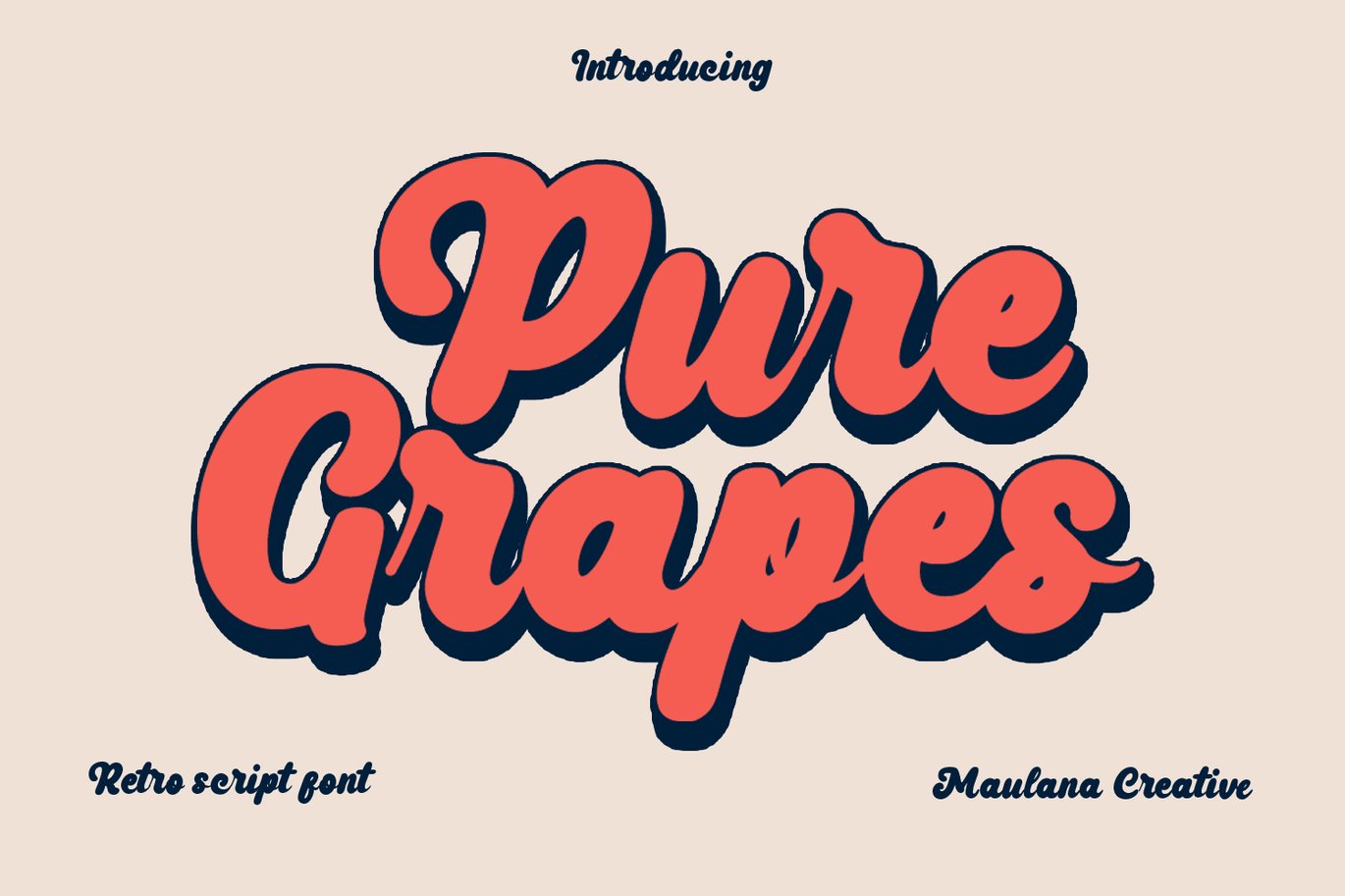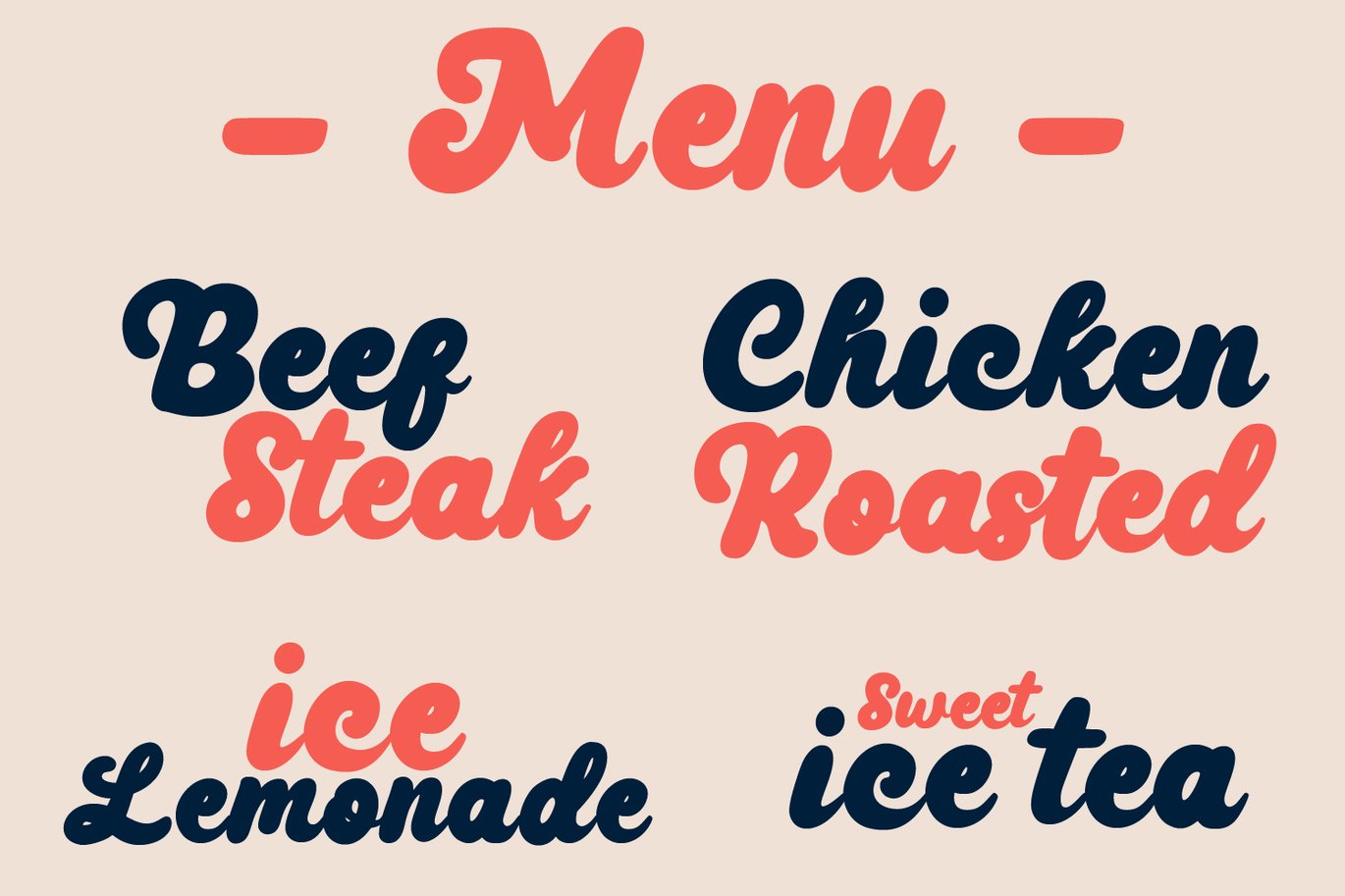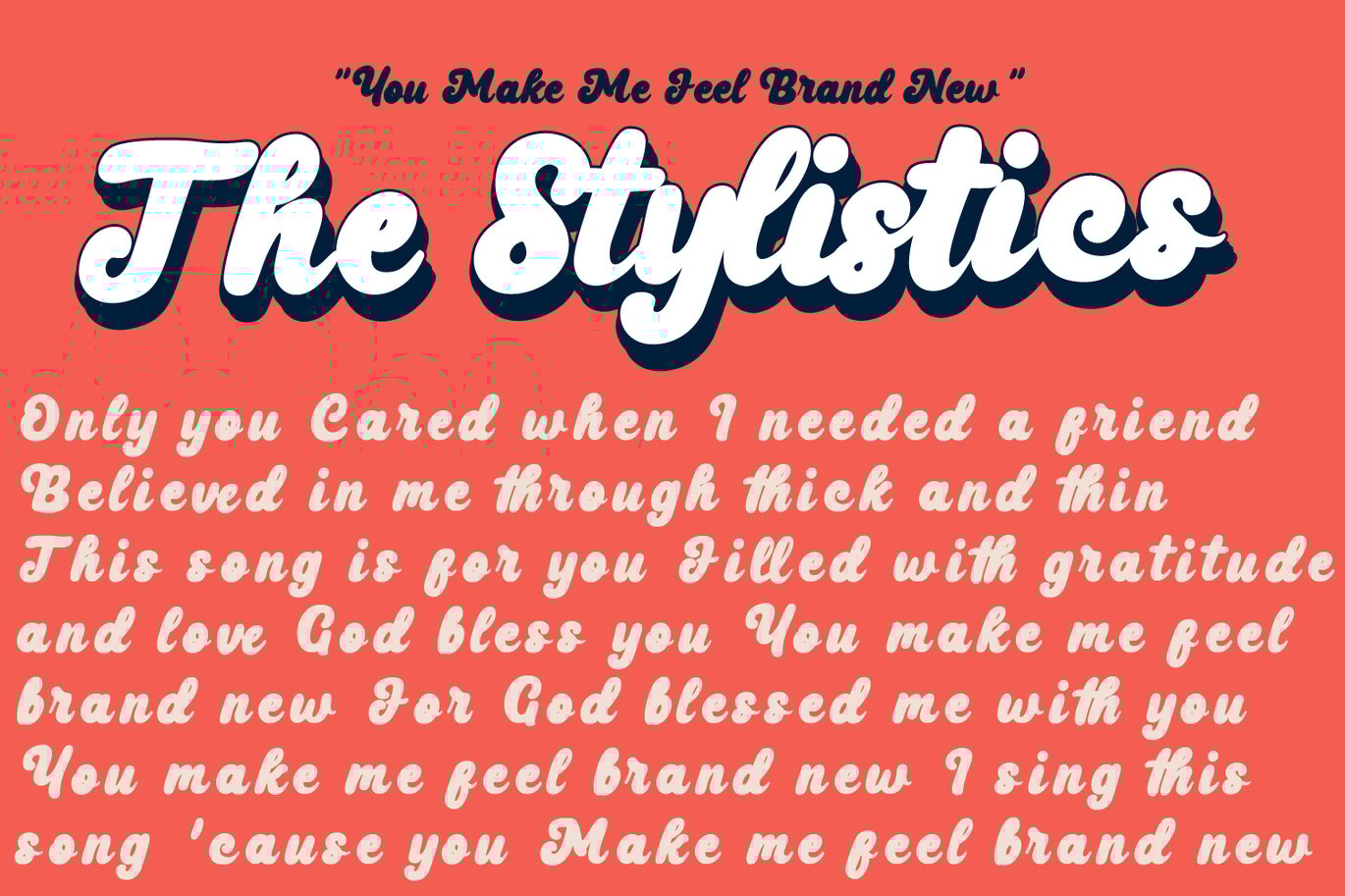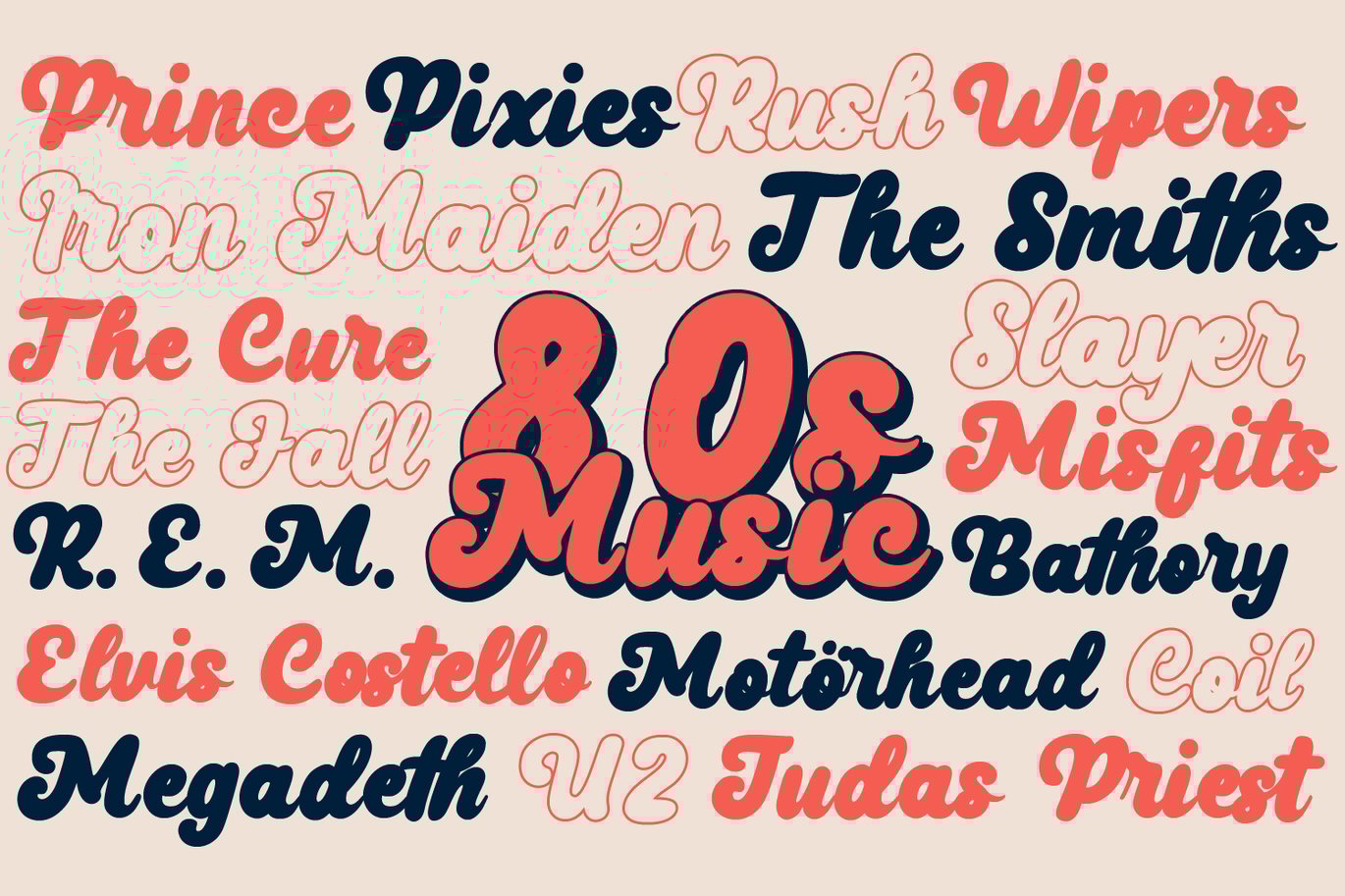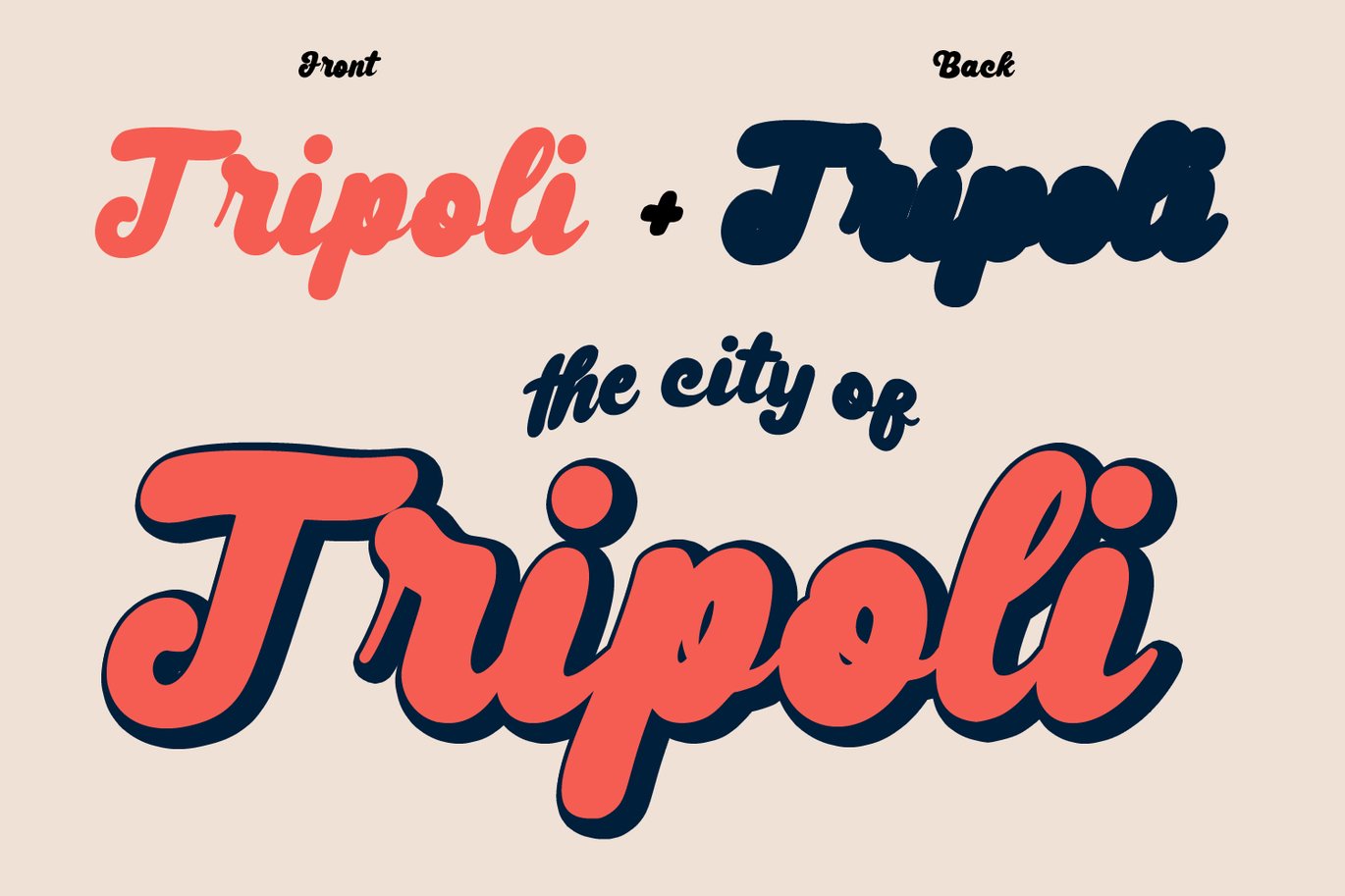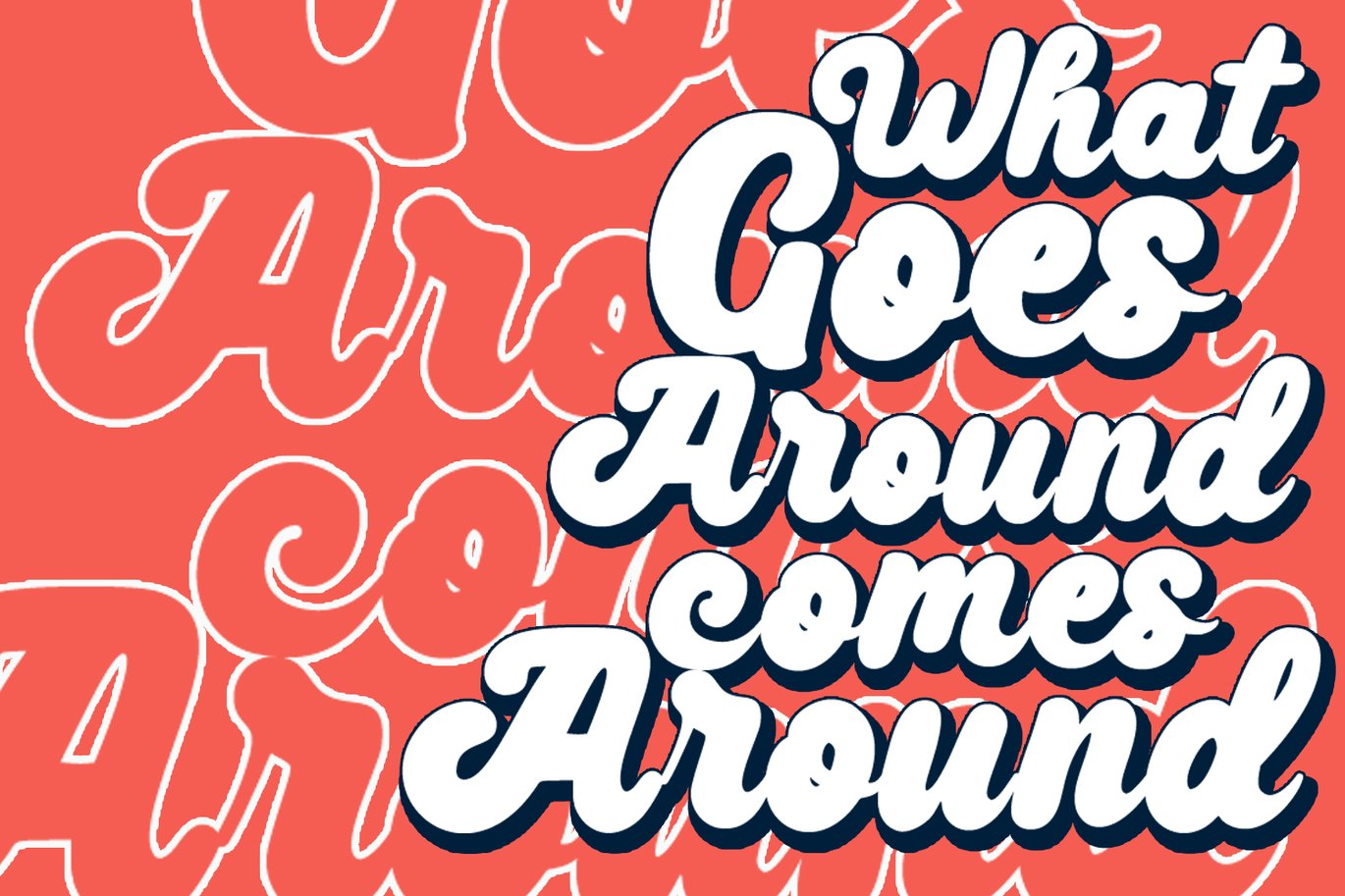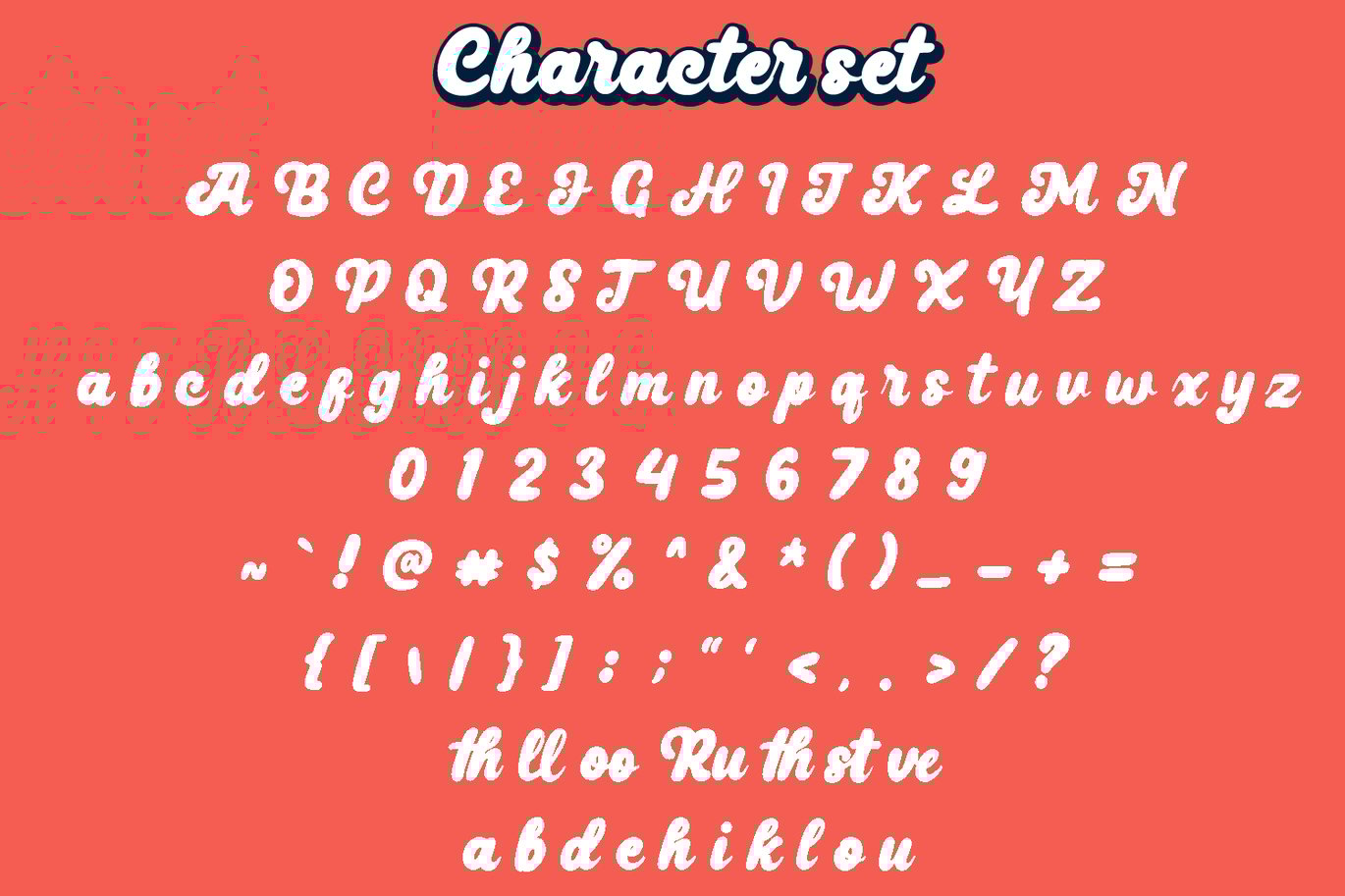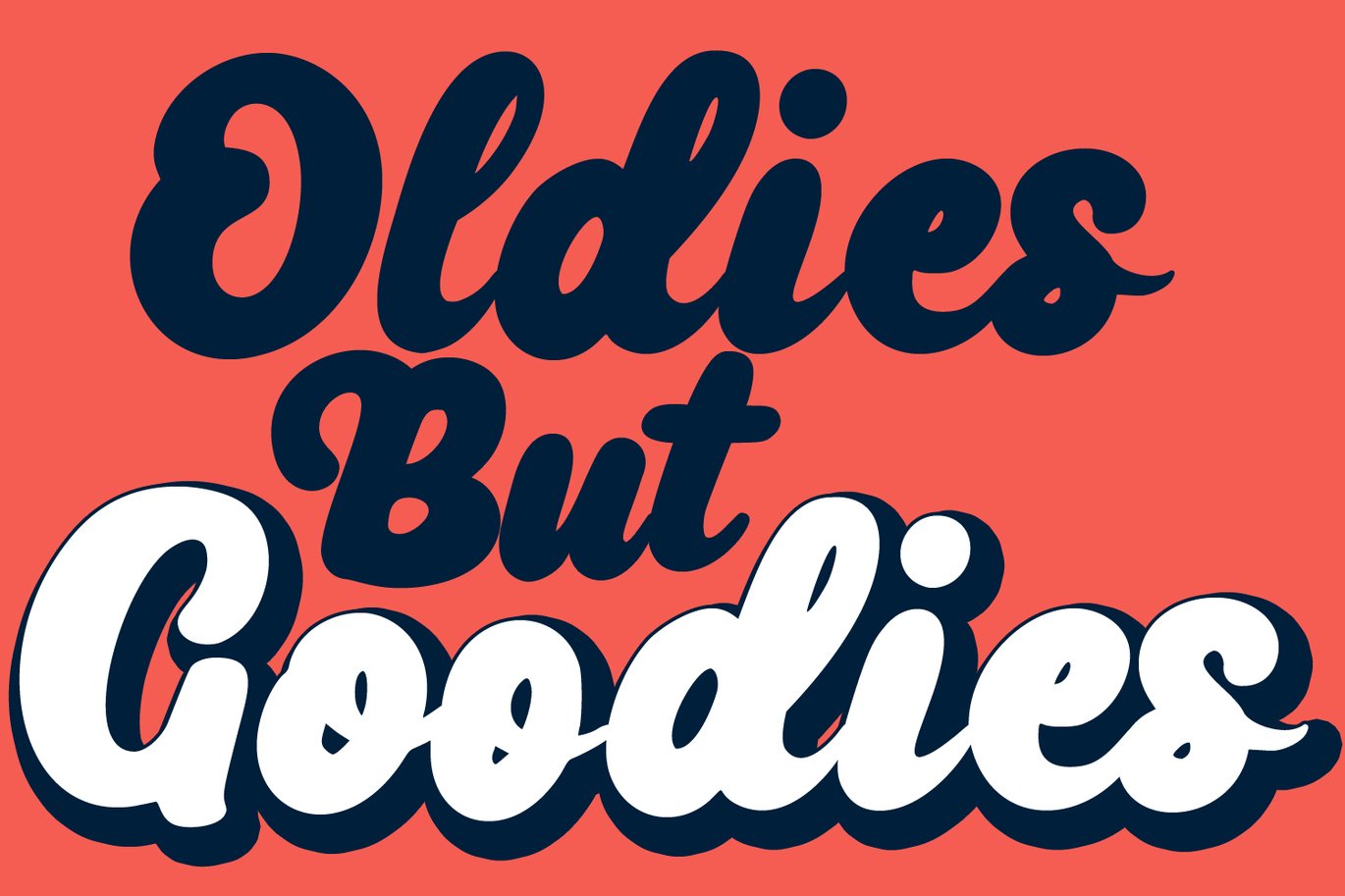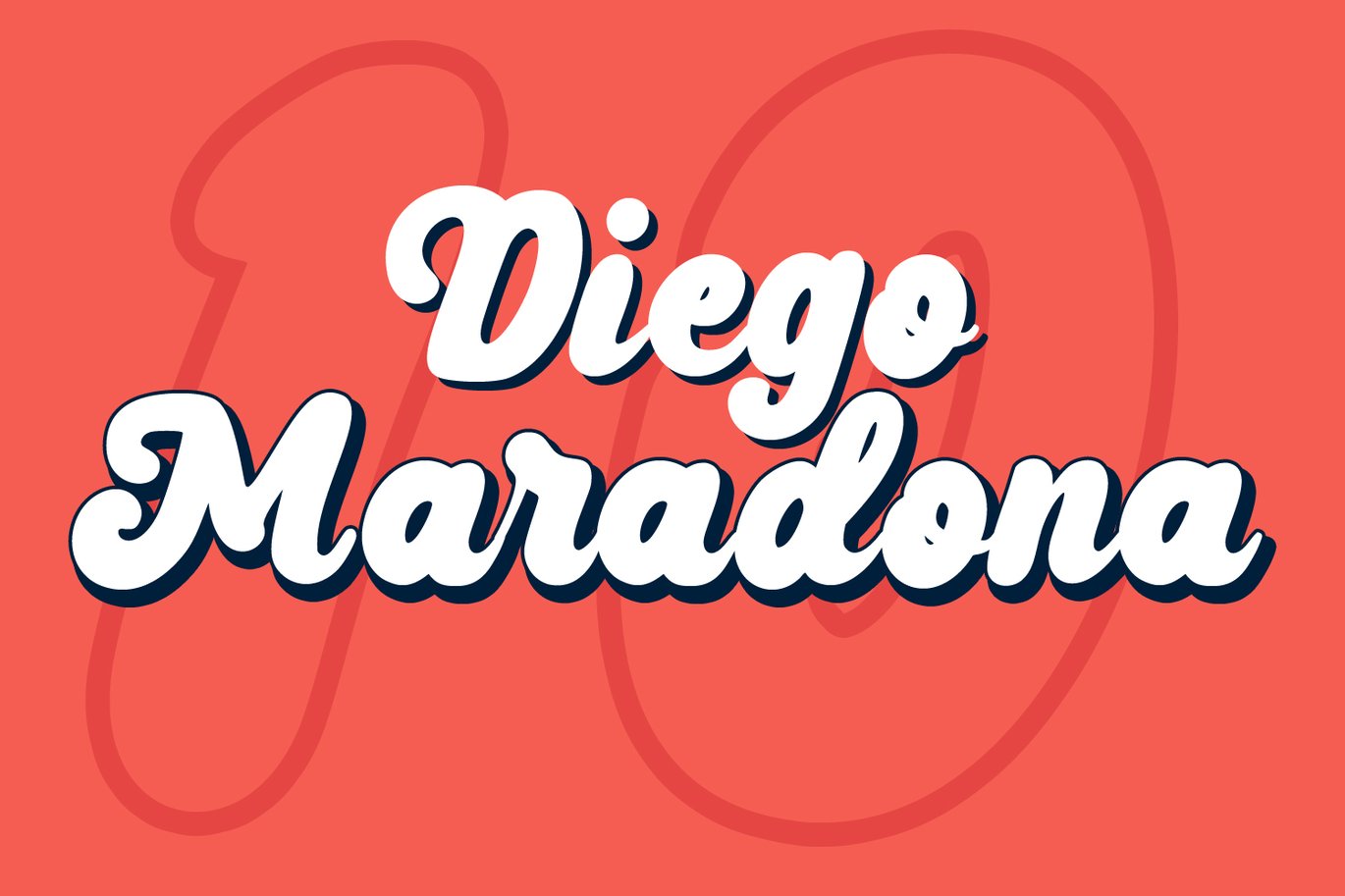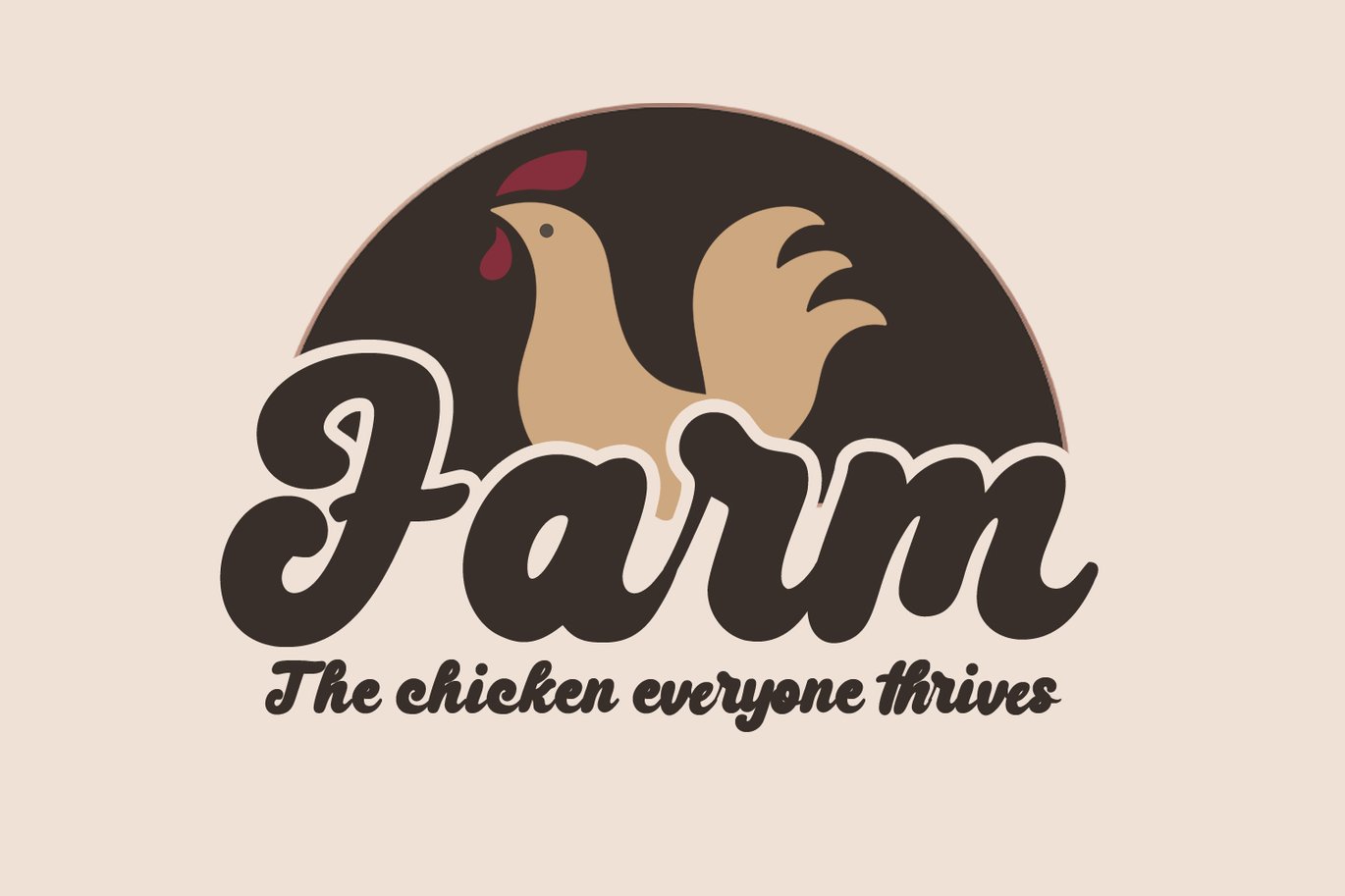
Pure Grapes Retro Cursive Font
Pure Grapes is a fancy handwritten script font. With bold contrast stroke, fun character with a bit of ligatures and alternates. To give you an extra creative work. Pure Grapes font support multilingual more than 100+ language. This font is good for logo design, Social media, Movie Titles, Books Titles, a short text even a long text letter and good for your secondary text font with sans or serif. Make a stunning work with Pure Grapes font.